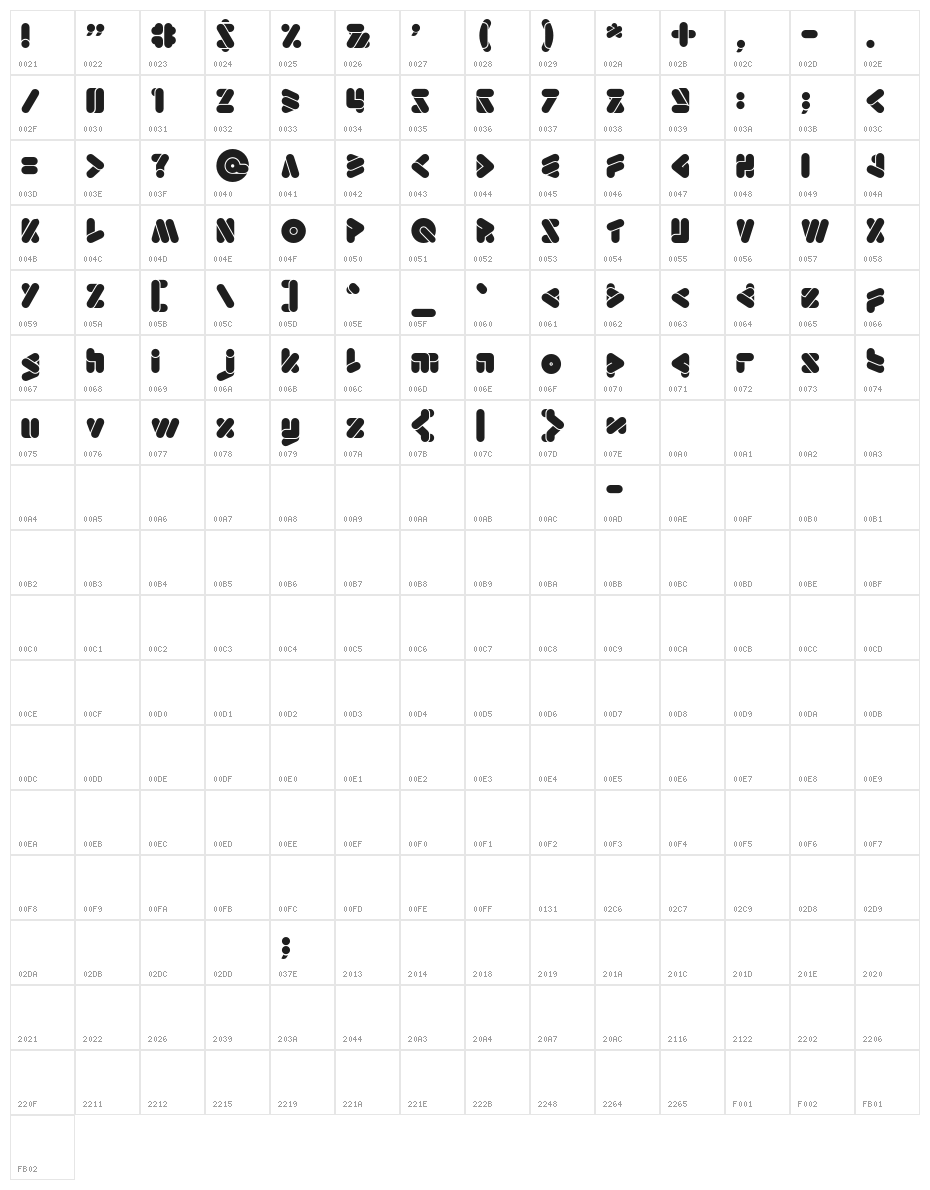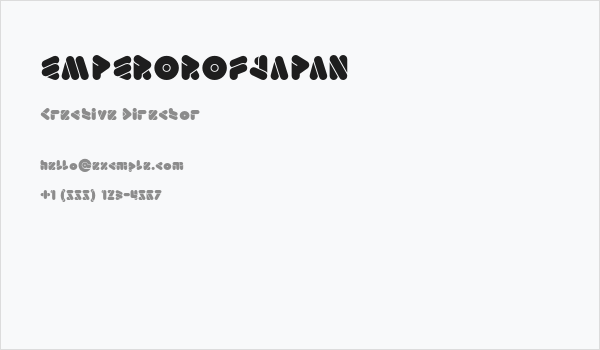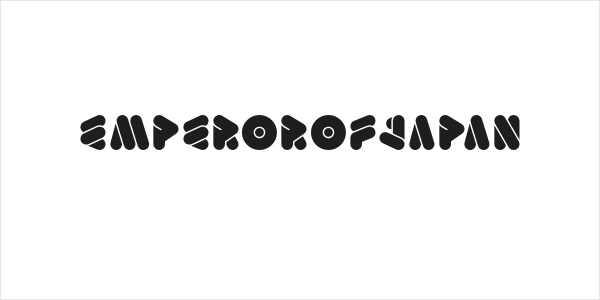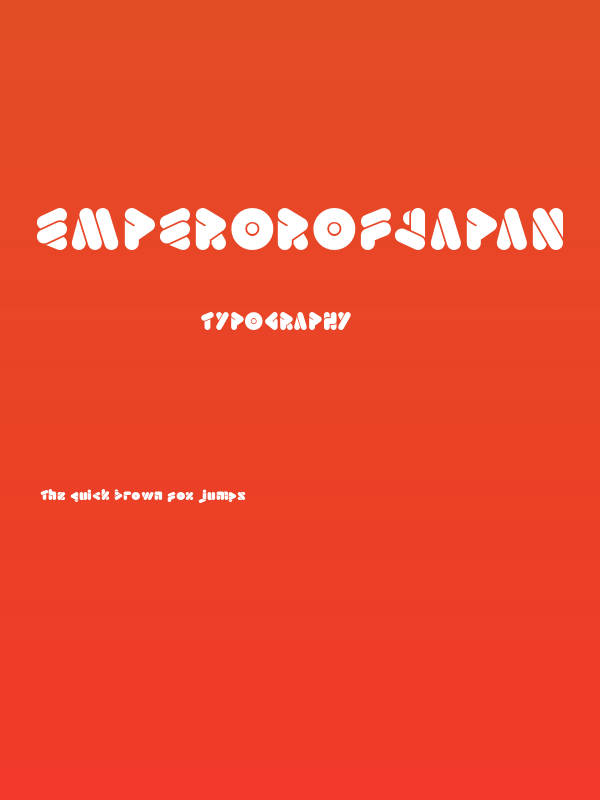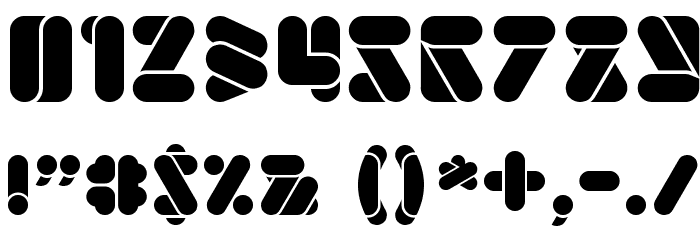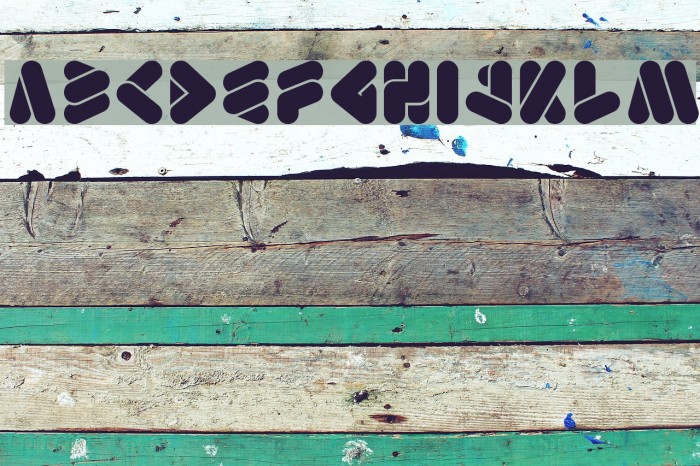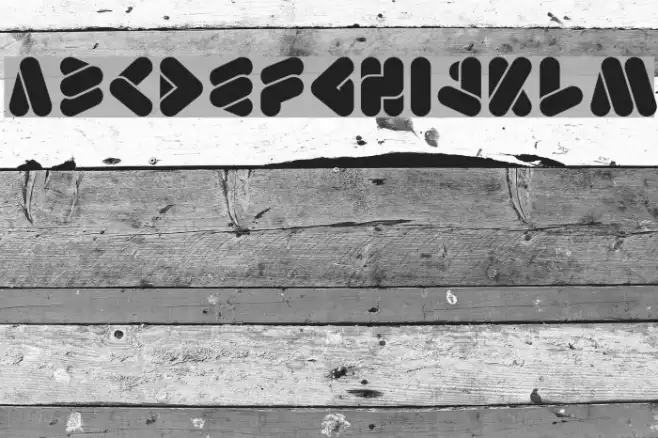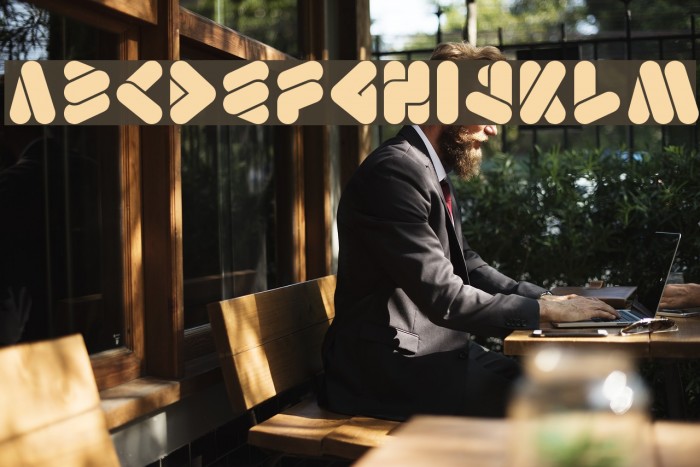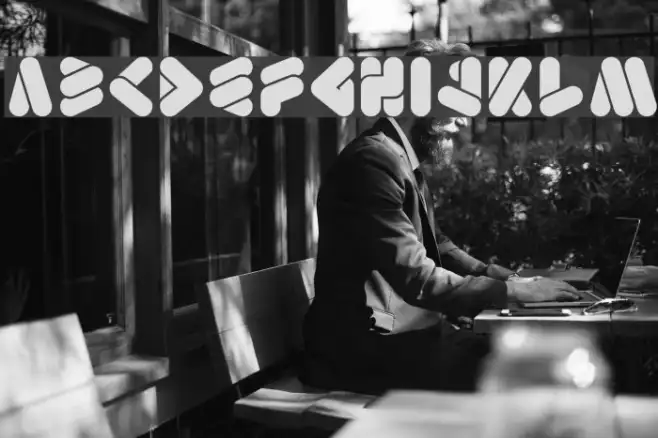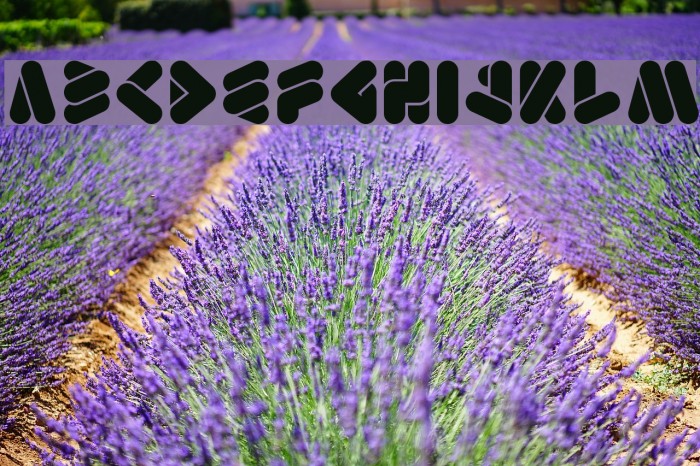
EMPEROROFJAPAN Font
EMPEROROFJAPAN Description
This font features a bold and geometric design with a futuristic flair. Each character is composed of thick, rounded shapes that create a sense of solidity and modernity. The letters are constructed with a series of overlapping and intersecting forms, giving them a unique, almost puzzle-like appearance. This style is consistent across both uppercase and lowercase letters, as well as numbers and special characters. The font's distinctiveness lies in its ability to convey a sense of innovation and creativity, making it ideal for projects that aim to stand out and make a bold statement.
| Proposed Projects | Ideal for branding, tech-related projects, futuristic themes, and creative advertising. |